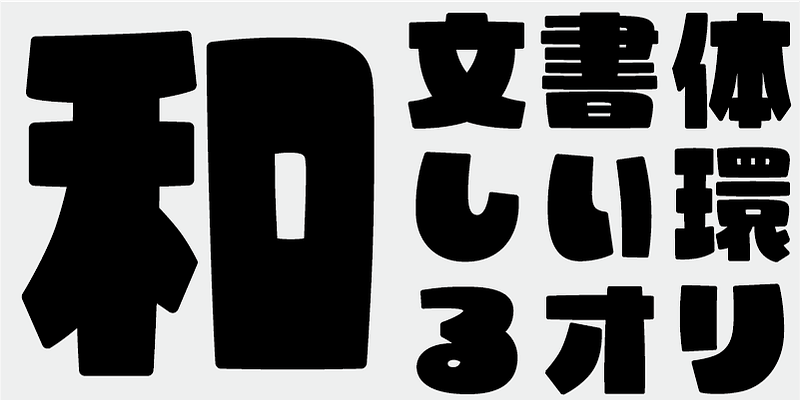
AB J Gu Font Free Download is a bold and contemporary Japanese-style display typeface that blends geometric formality with expressive flair. With strong strokes, square-cut edges, and a modern structure, this font is perfect for branding, posters, signage, product packaging, and visual identities that seek a sharp, confident aesthetic with a cultural twist.
Designed for impact, AB J Gu stands out with its visual weight and clarity. Each character feels grounded and purposeful, making it especially effective for headlines and short phrases that need to grab attention. Its unique character design adds an artistic, slightly futuristic tone while retaining strong ties to traditional Japanese visual language.